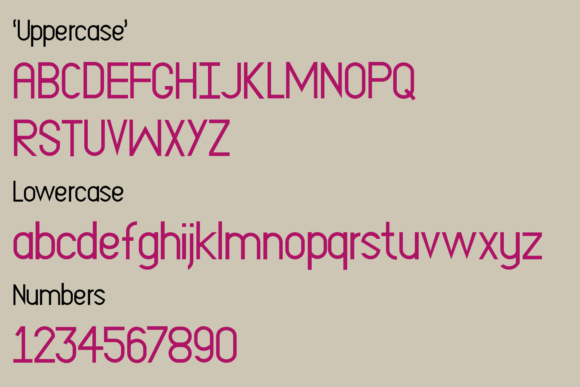
Introducing Dominate Font: Elevate Your Designs with Elegance and Sophistication
In the world of typography, a font can make or break a design. When it comes to creating visually stunning and fashionable projects, the right font is essential. This is where Dominate Font comes in – a simply beautiful sans serif font that is best suited for designers and crafters looking to add a touch of elegance and sophistication to their work.
The Characteristics of Dominate Font
Dominate Font boasts a stylish and slick feel, making it the perfect choice for projects that require a modern and refined aesthetic. Its sans serif design ensures that the font remains clean and uncluttered, allowing the text to flow smoothly and effortlessly. The font’s elegant features make it an excellent choice for a wide range of design applications, from luxury branding and advertising to fashion magazines and product packaging.
Why Choose Dominate Font?
So, what sets Dominate Font apart from other fonts in its category? Here are just a few reasons why designers and crafters are falling in love with this stunning font:
- Elegance and Sophistication: Dominate Font exudes elegance and sophistication, making it perfect for high-end designs that require a touch of luxury.
- Versatility: This font is incredibly versatile and can be used for a wide range of design applications, from digital projects to print materials.
- Readability: The clean and simple design of Dominate Font ensures that text remains highly readable, even at smaller font sizes.
- Uniqueness: While Dominate Font is a sans serif font, its unique features and styling set it apart from more generic fonts in its category.
How to Use Dominate Font in Your Designs
Dominate Font is incredibly easy to use and can be incorporated into your designs in a variety of ways. Here are a few tips to get you started:
- Pair it with Other Fonts: Dominate Font pairs well with a range of other fonts, making it easy to create visually interesting and dynamic designs.
- Experiment with Font Sizes: The font’s clean design ensures that it remains readable at a range of font sizes, making it perfect for use in both headings and body text.
- Play with Color: Dominate Font looks stunning in a range of colors, so don’t be afraid to experiment and find the perfect hue for your design.
Who Can Benefit from Using Dominate Font?
Dominate Font is an excellent choice for a wide range of designers and crafters, including:
- Graphic Designers: Whether you’re working on a branding project, creating advertising materials, or designing a website, Dominate Font is a great choice.
- Fashion Designers: If you’re looking for a font that exudes elegance and sophistication, Dominate Font is perfect for fashion-related projects.
- Digital Artists: The font’s clean and simple design makes it a great choice for digital artists looking to add text to their work.
In conclusion, Dominate Font is a stunning sans serif font that is sure to elevate your designs to the next level. Its elegant features, versatility, and readability make it an excellent choice for a wide range of design applications. Whether you’re a graphic designer, fashion designer, or digital artist, Dominate Font is a must-have font that will help you create visually stunning and sophisticated designs.